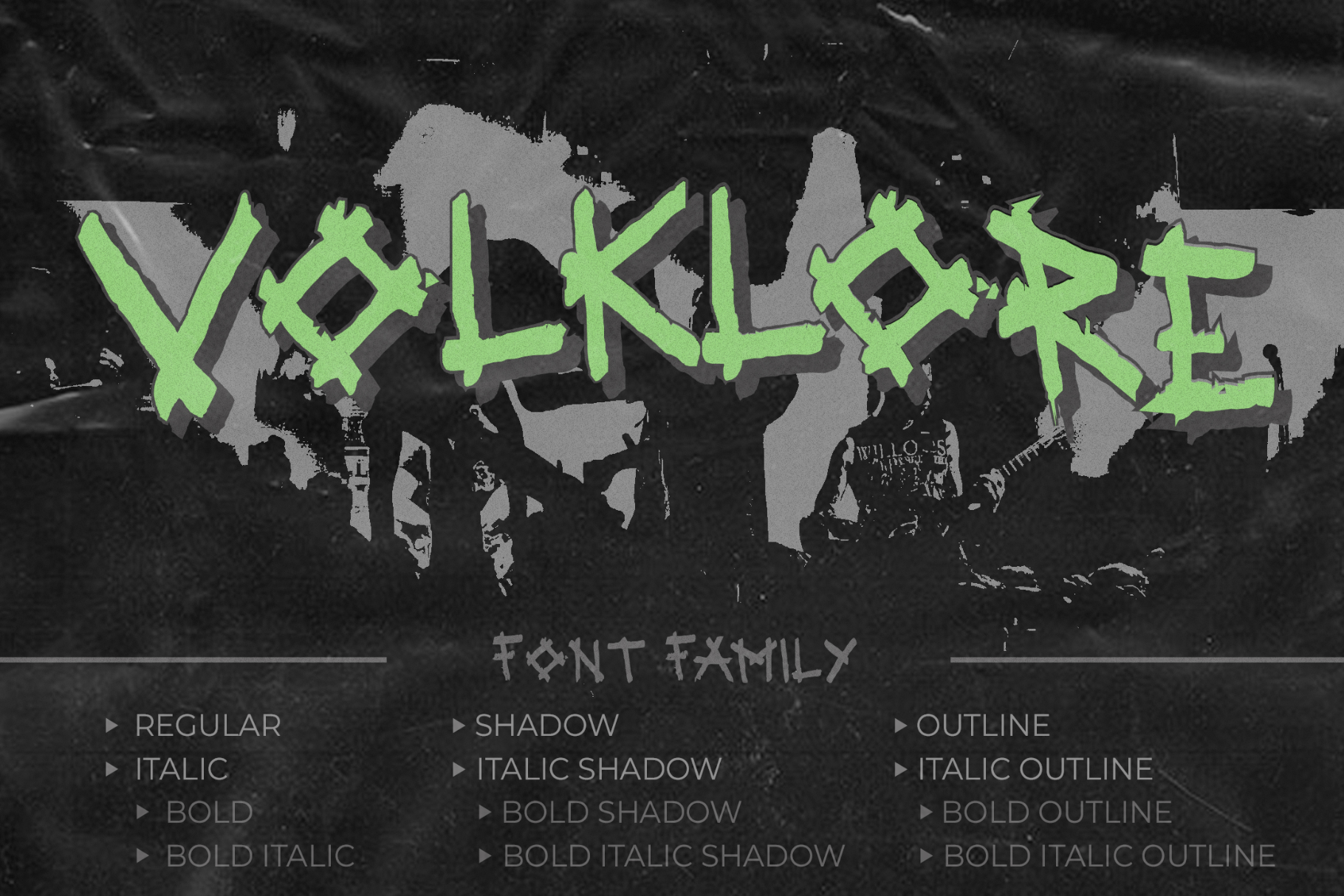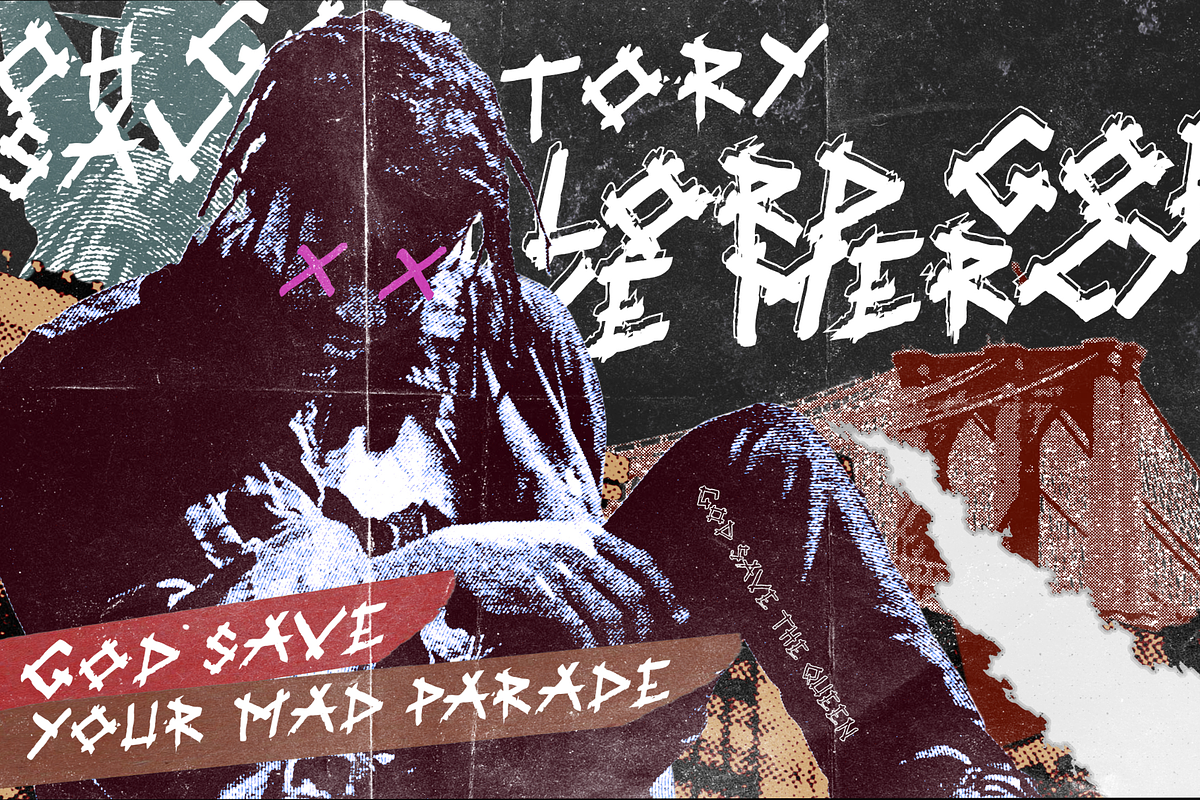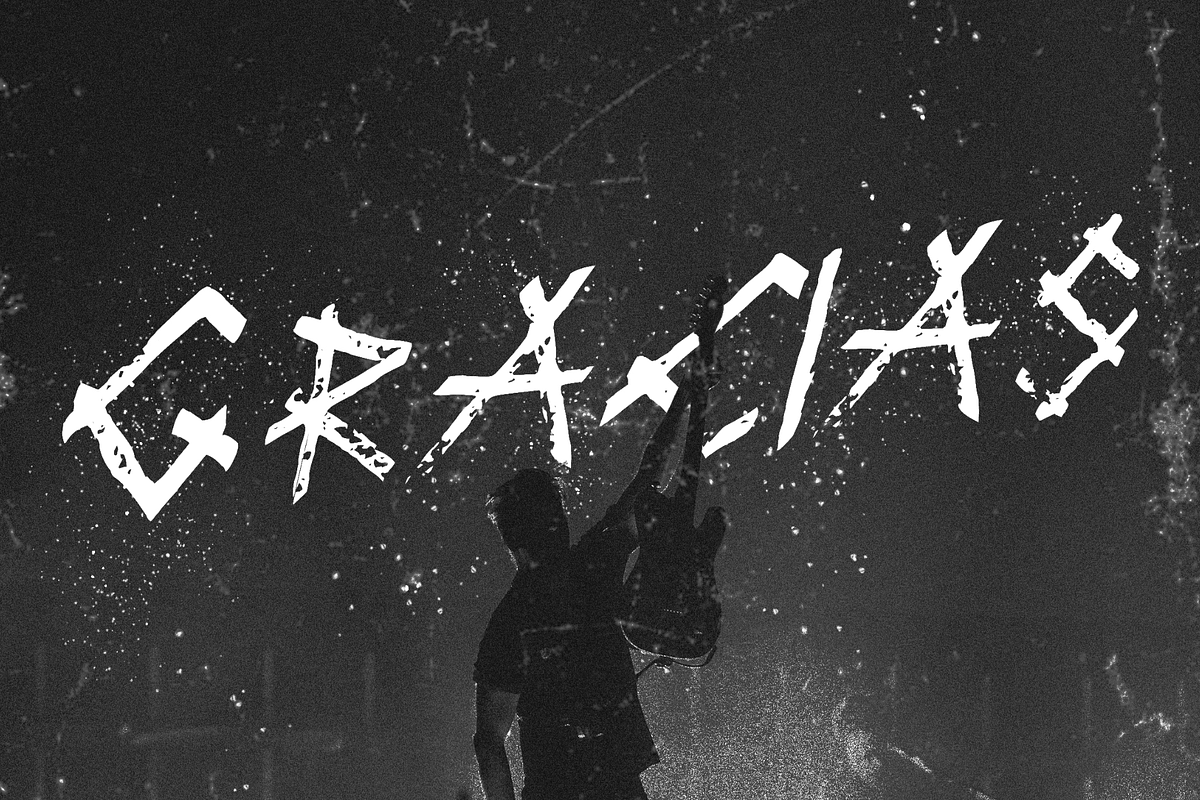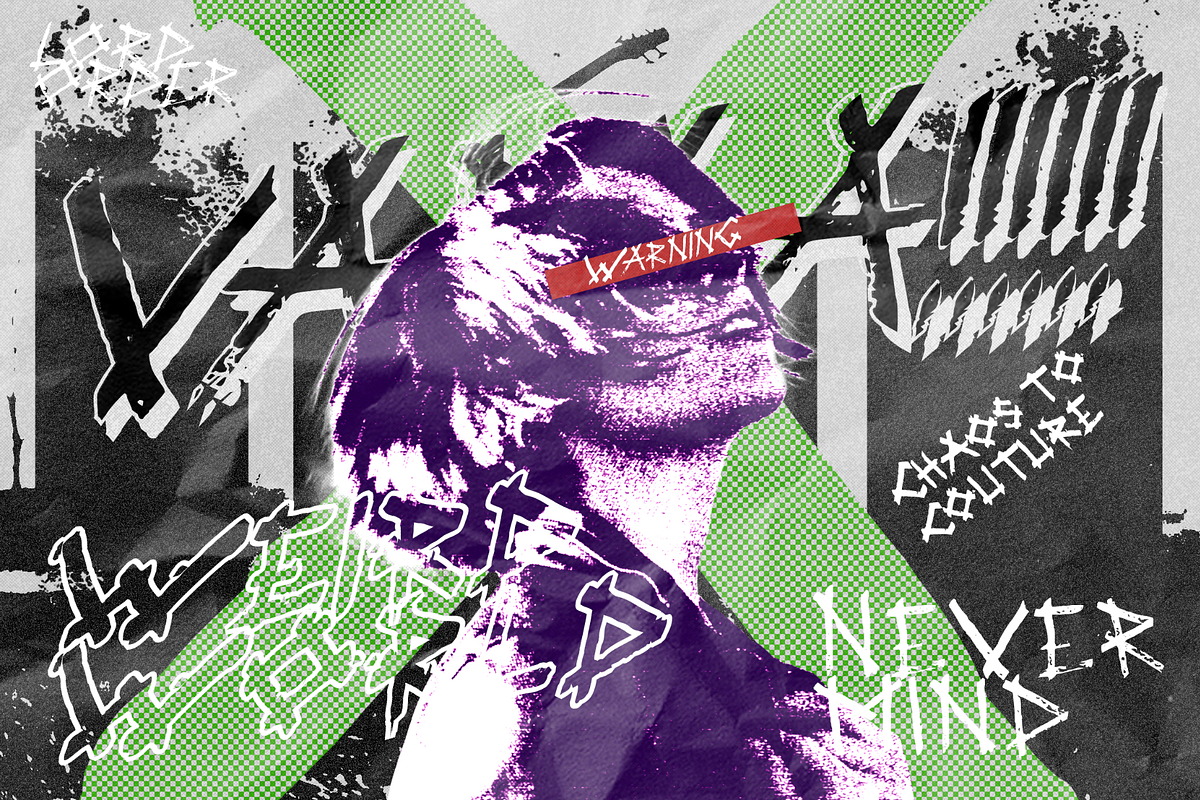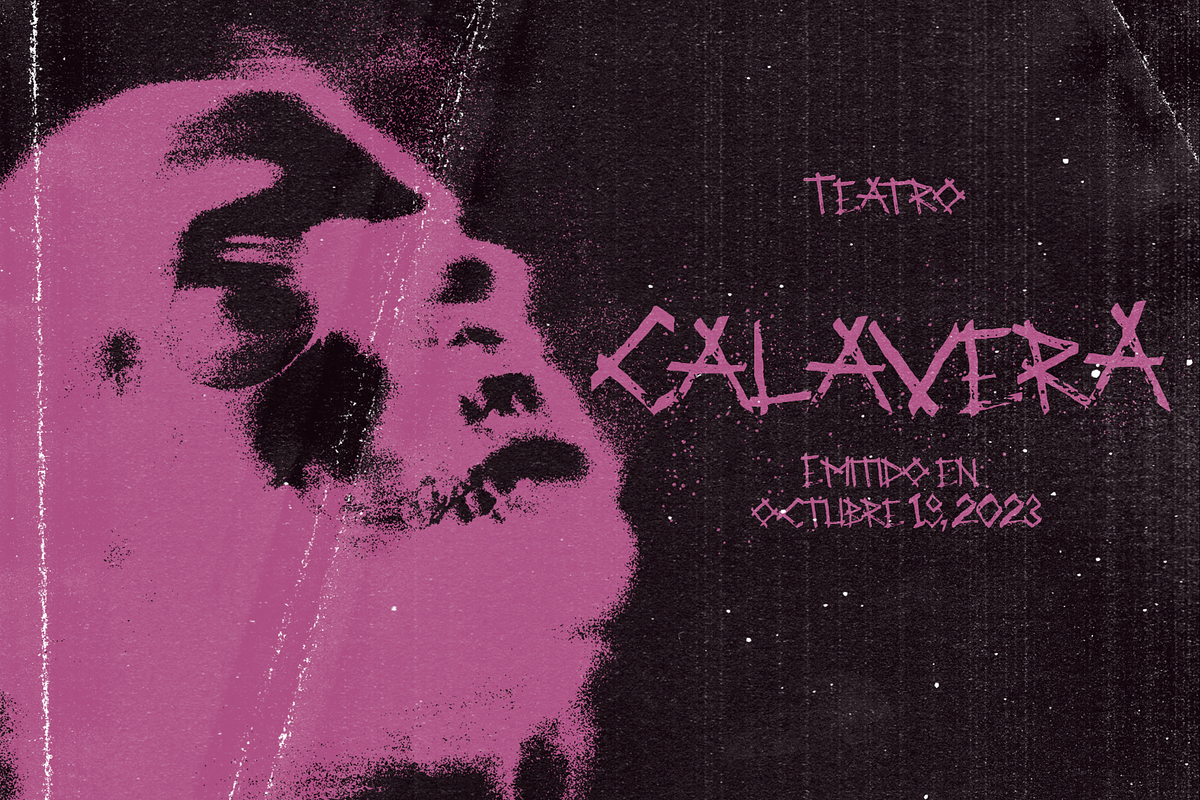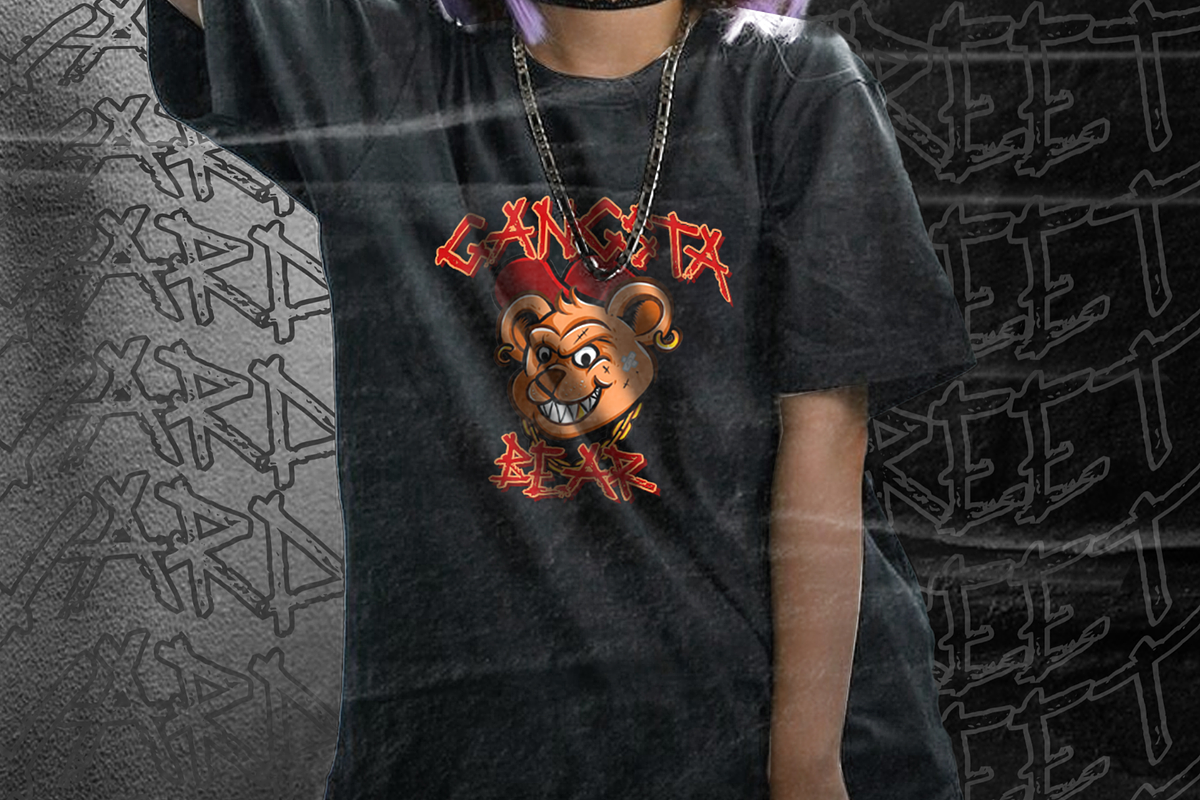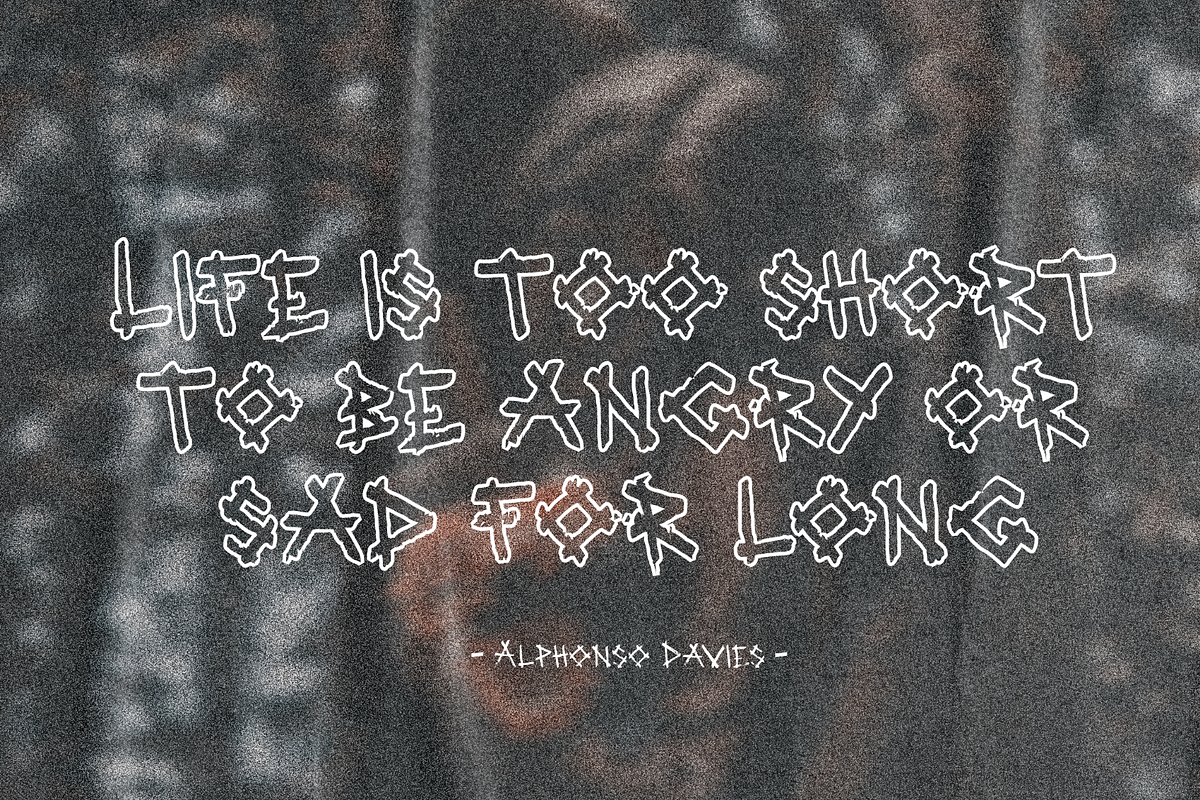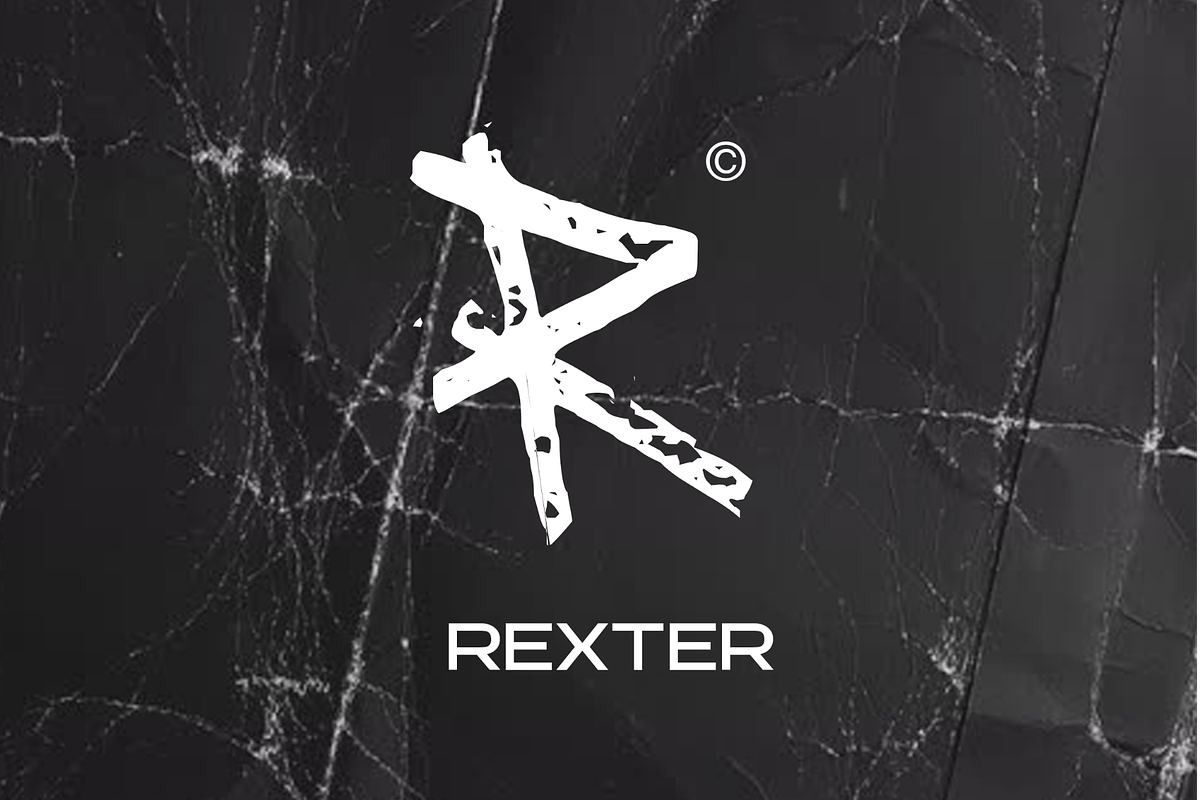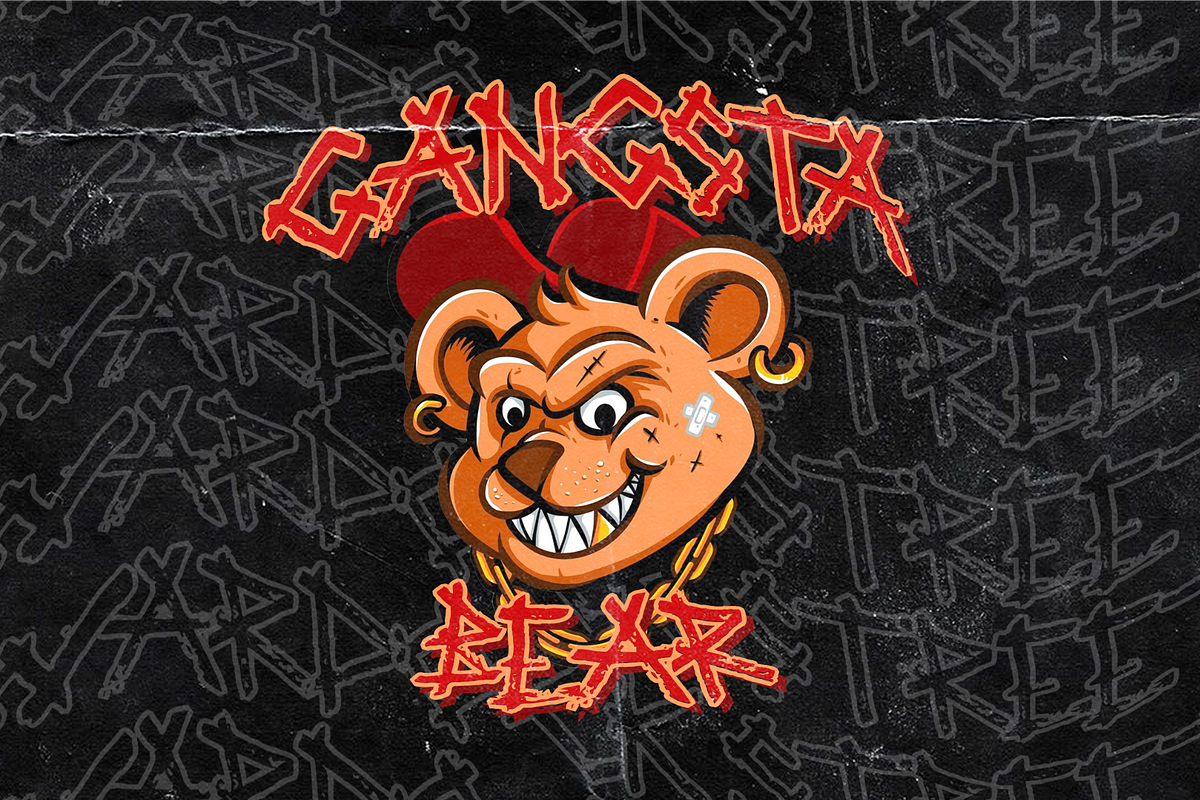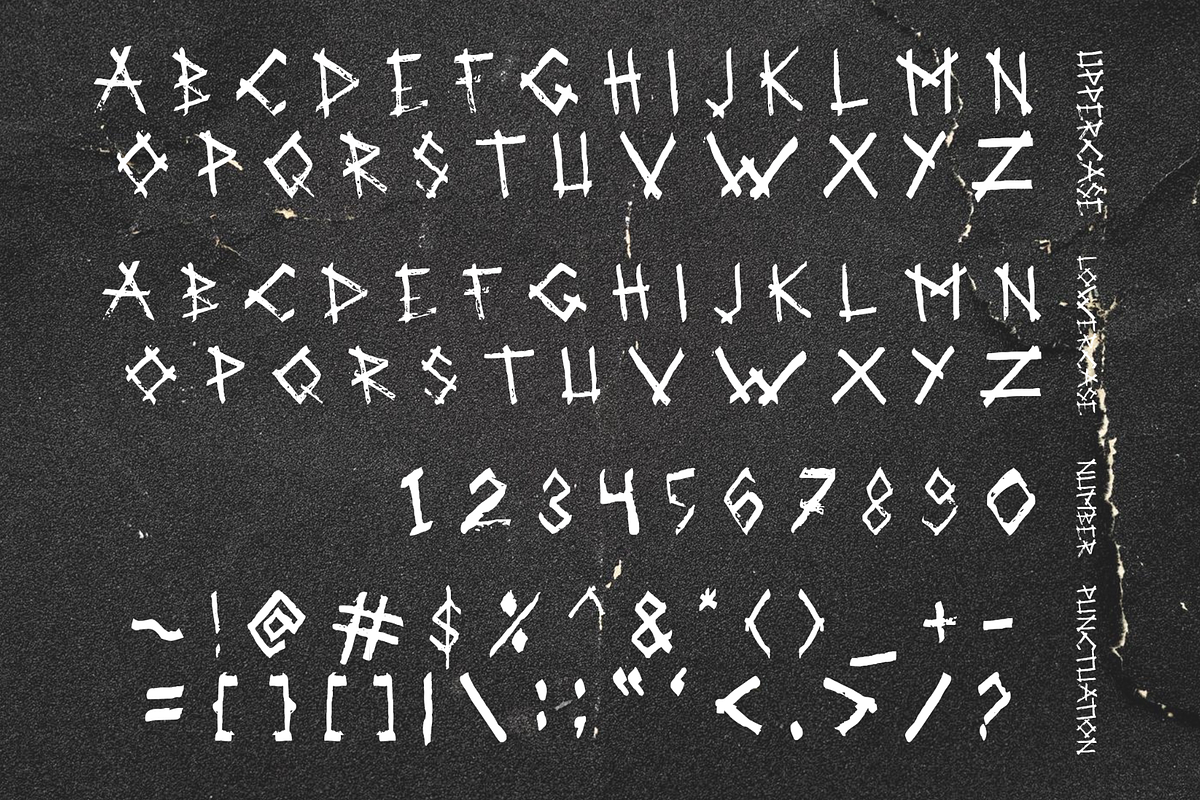
Volklore - Edgy Trashed Font
Introducing Volklore, a trashed font embodying the rebellious spirit of punk, horror, myth, metal, and streetwear. With its textured and classic appeal, this versatile typeface boasts 12 unique styles. Perfect for posters, horror movie titles, T-shirt designs, games, digital craft, and beyond. Embrace the edgy aesthetic and unleash creativity across diverse mediums.